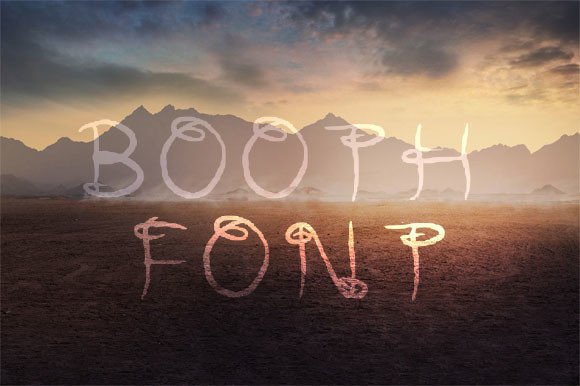
Booth Font
About Booth Font
**Booth: Your Ticket to Fun and Quirky Designs**
Introducing Booth, a delightful handwritten font that injects a playful and quirky spirit into your design projects. With Booth, you can confidently infuse your creations with a sense of whimsy, making them stand out and leaving a lasting impression.
**Unleash Playfulness:**
Booth is your passport to a world of creativity and fun. Its quirky, hand-drawn style adds a touch of whimsical charm to your designs, making them perfect for a wide range of projects. Whether you’re designing greeting cards, posters, invitations, or creating unique social media content, Booth will help you unleash your playful side.
**Versatile and Engaging:**
This font is as versatile as it is engaging. Its distinctive characters dance along the baseline, creating a sense of movement and liveliness. Use Booth for everything from branding to signage, from book covers to merchandise, and watch as it infuses your projects with a sense of character and personality.
**Captivate Your Audience:**
Booth isn’t just a font; it’s a storyteller. Its playful, handwritten look instantly captures the viewer’s attention and invites them to engage with your message. Whether you’re aiming to make a memorable statement or convey a sense of joy and cheerfulness, Booth is your ideal choice.
**Easygoing Typography:**
Booth’s easygoing and informal style lends itself perfectly to a wide range of design needs. Its legibility ensures that your message is clear, while its unique character adds a touch of individuality to your text. When you use Booth, you’re not just designing; you’re creating an experience.
**Boost Creativity:**
This font has the power to boost your creativity and inject a dose of playfulness into your work. It encourages experimentation and invites you to think outside the box. Whether you’re designing for personal projects or client work, Booth is your trusty companion for unlocking fresh ideas.
**Stand Out with Booth:**
In a world filled with standard fonts, Booth is your opportunity to stand out. Its quirky, handwritten charm adds a layer of uniqueness to your designs that captures the viewer’s imagination. When you want your projects to be memorable, Booth is the font that will set you apart.
In conclusion, Booth is your ticket to fun and quirky designs that leave a lasting impression. Let your creativity run wild, and watch as Booth transforms your projects into engaging, playful, and unforgettable creations.